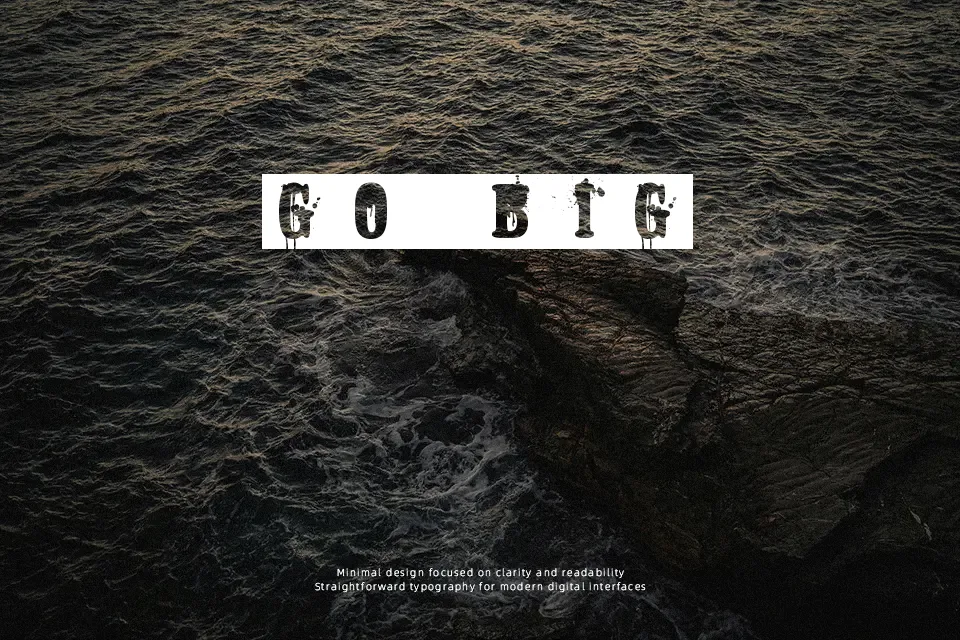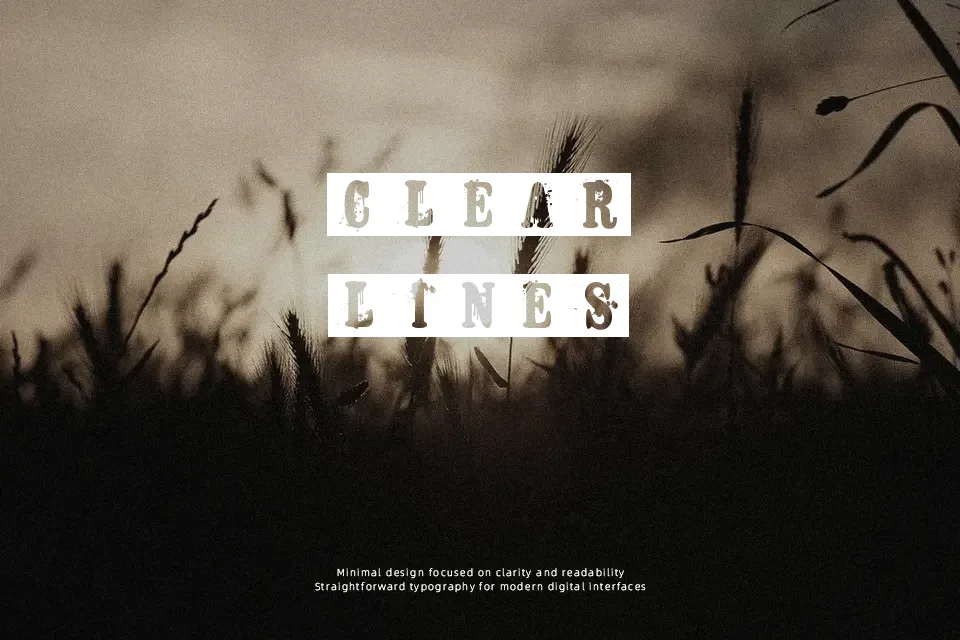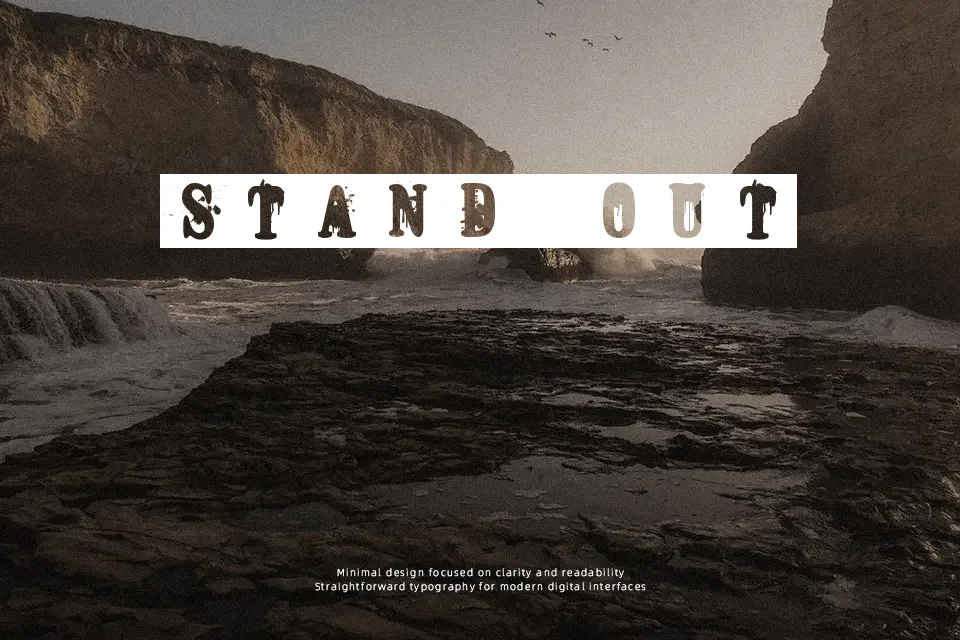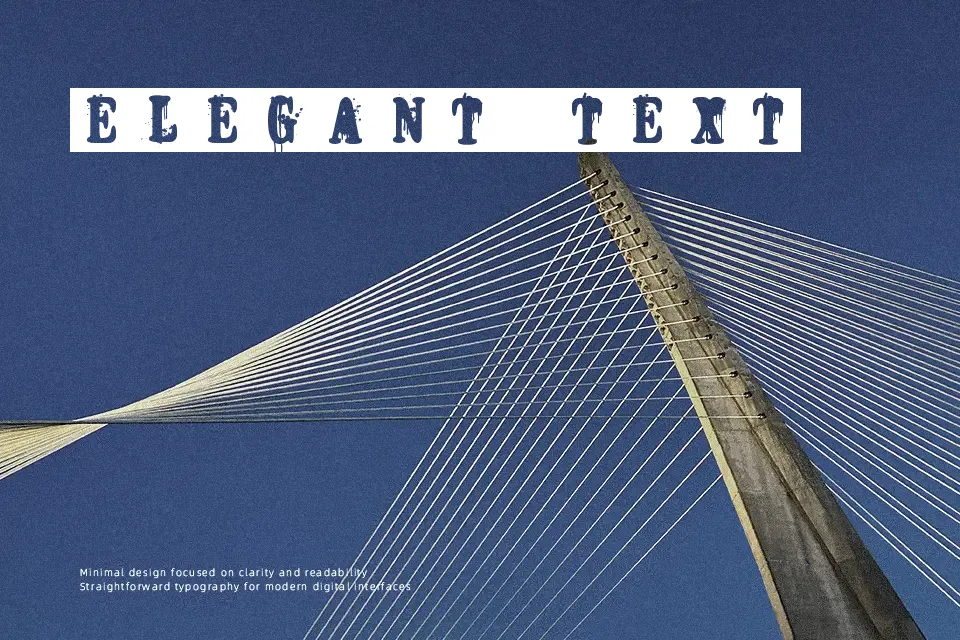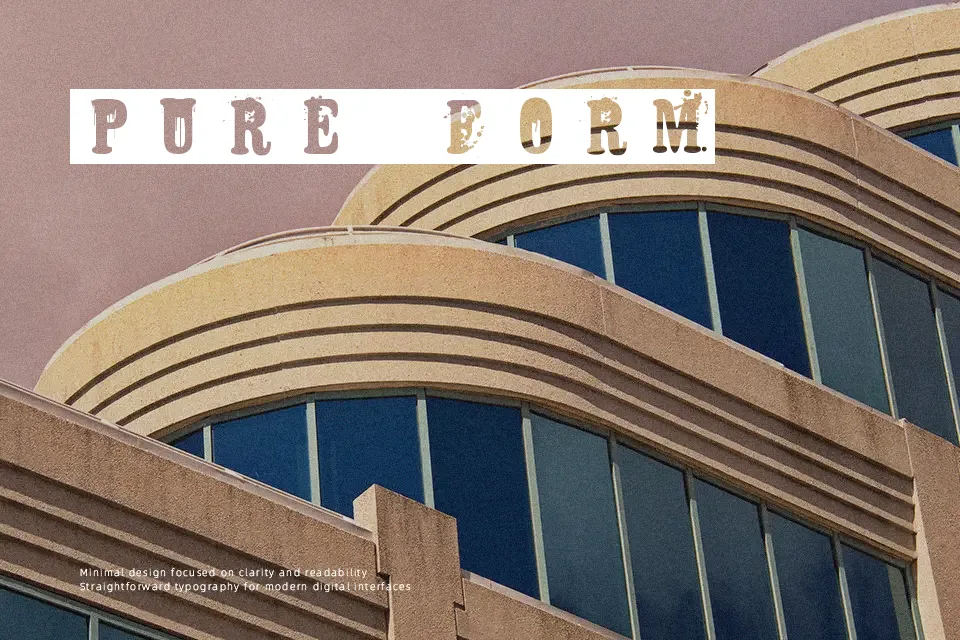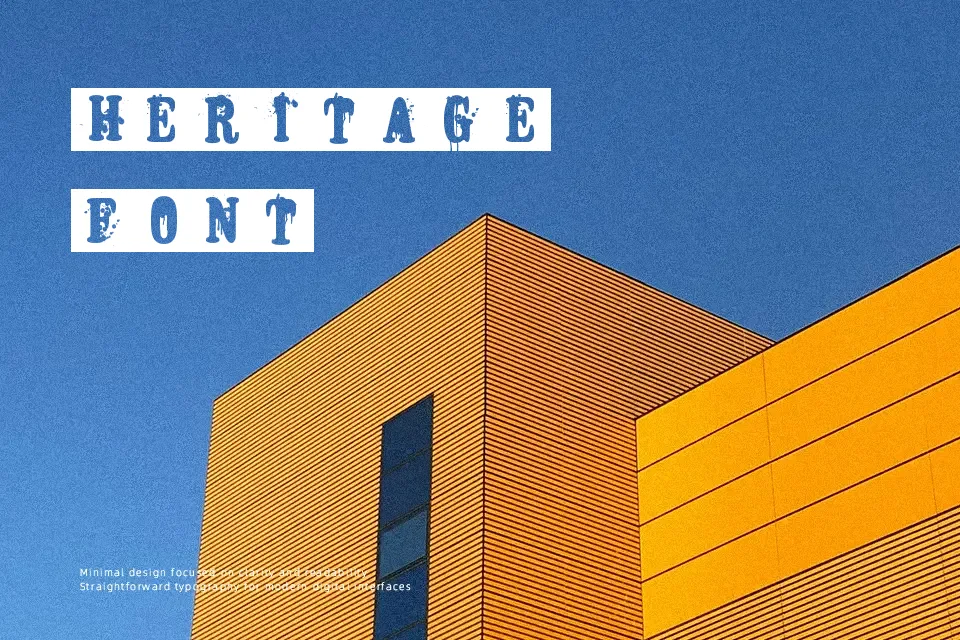
Abstemious Font
Abstemious hits hard with jagged, irregular strokes that feel torn rather than drawn — the kind of type that looks like it was cut from a linoleum block or scraped off a wall. It leans into raw, destructive energy without fully collapsing into illegibility, which keeps it functional for short-form display use. Think concert flyers, horror film titles, or DIY zine covers where rough texture is the point. The spacing is tight and the letterforms carry enough weight to anchor a composition. That said, it becomes genuinely difficult to read at smaller sizes, and anything requiring extended copy will quickly exhaust the eye. It works when the message is blunt and the setting calls for edge — it doesn’t work when clarity or refinement matters.
Best For:- Horror and dark-themed event posters
– Punk or metal band merchandise headers
– Underground zine or editorial title treatments
– Halloween seasonal graphics
Not Ideal For:- Body text or extended reading passages
– Corporate branding or professional contexts
– Small-scale UI labels or navigation text
– Children’s content or friendly visual tones
Perfect for halloween, headline, and logo, with a bold and decorative style.